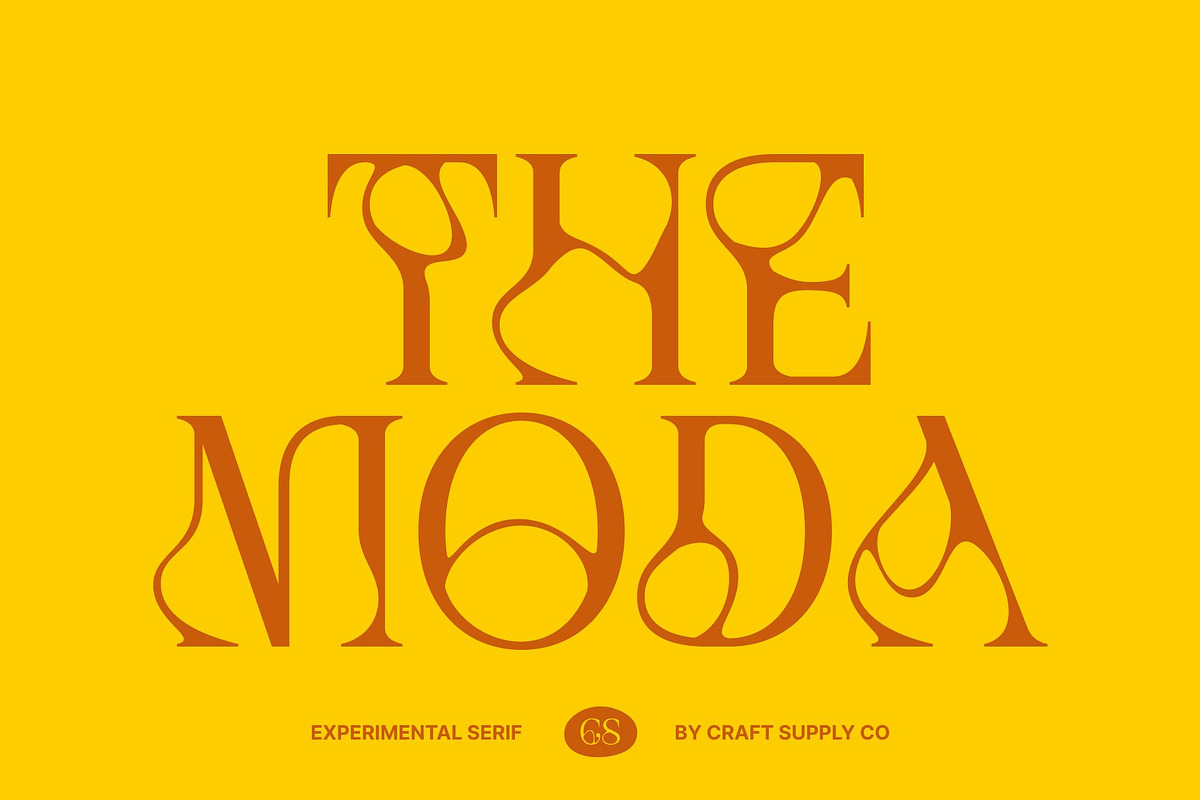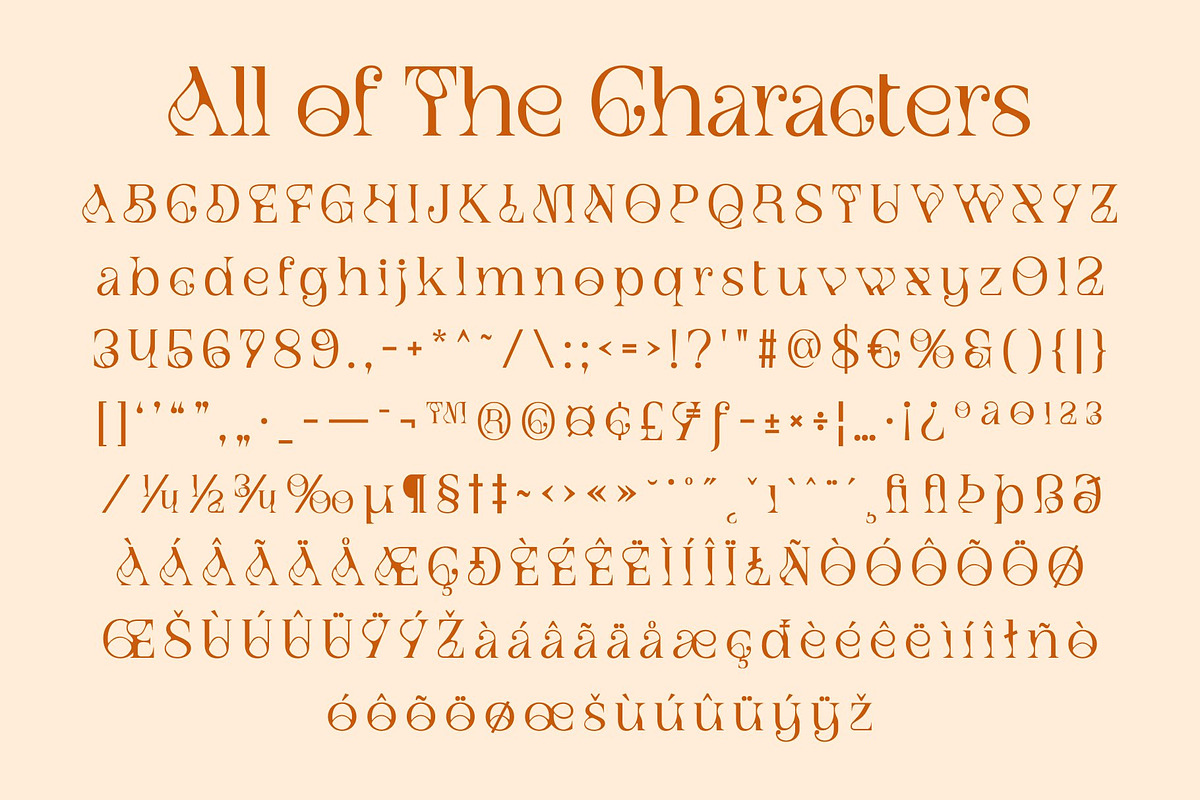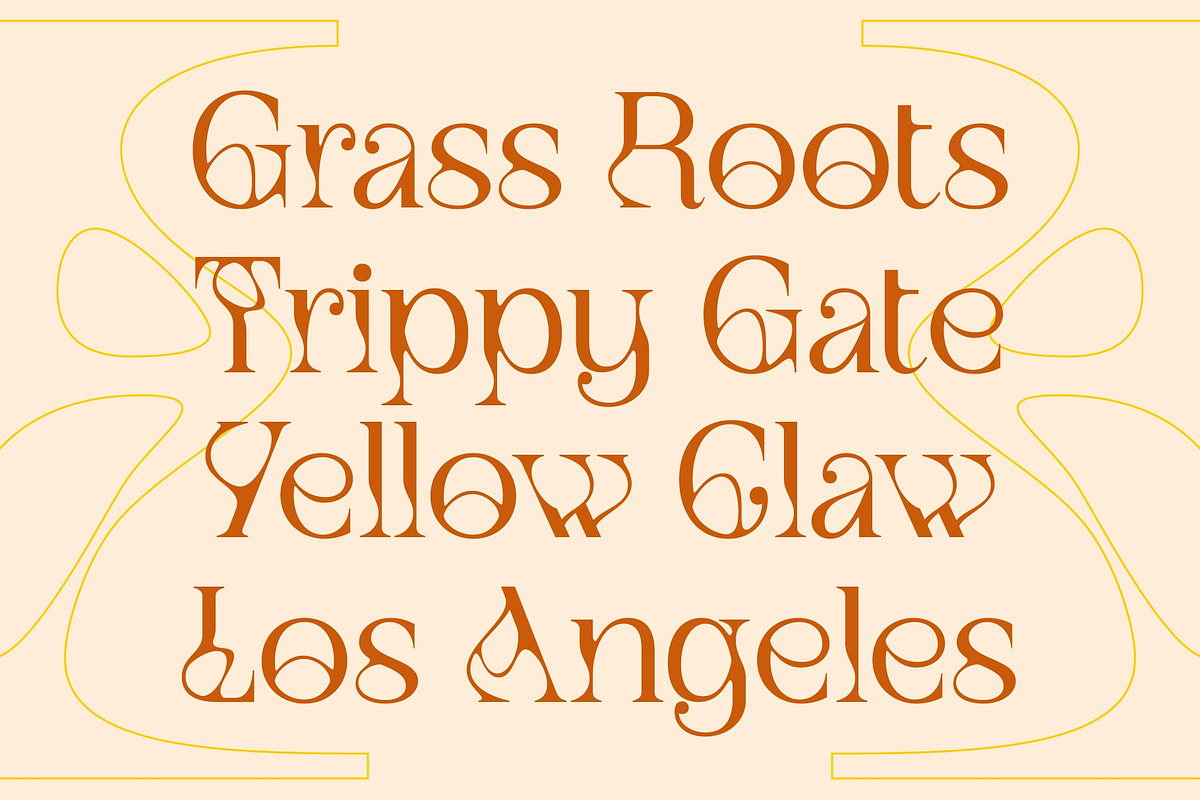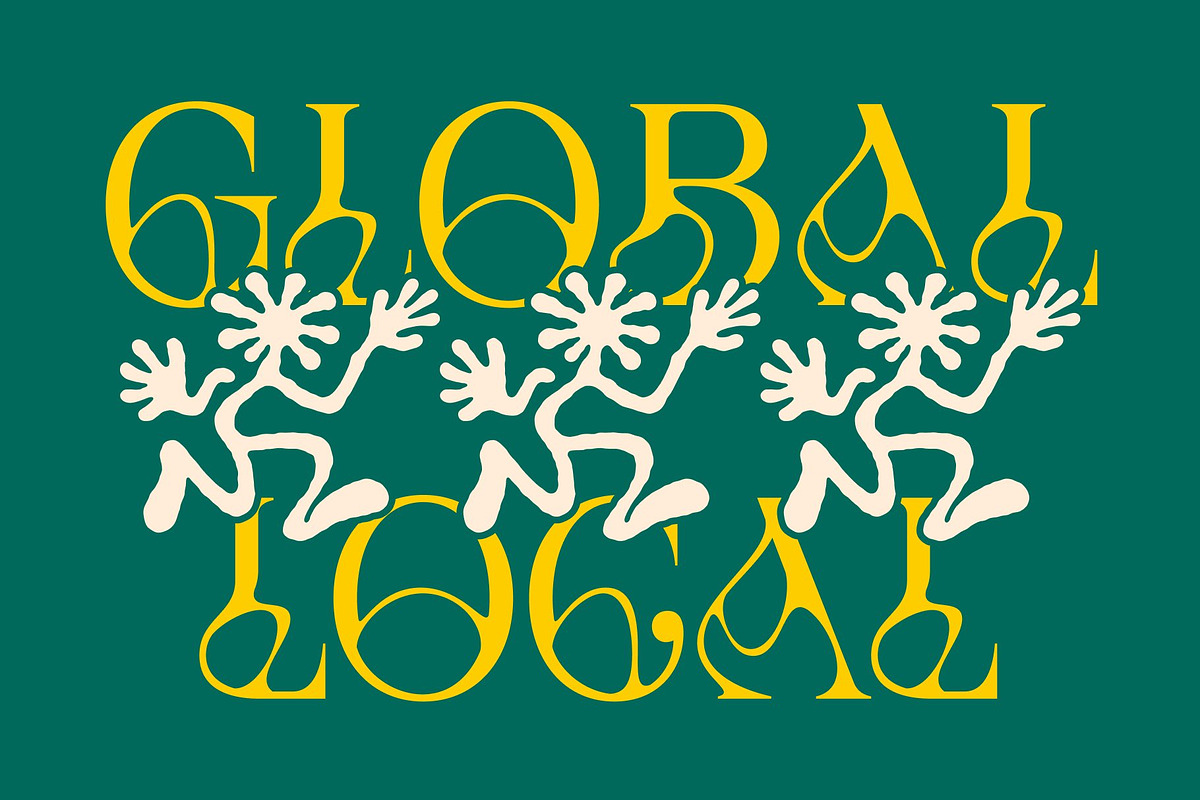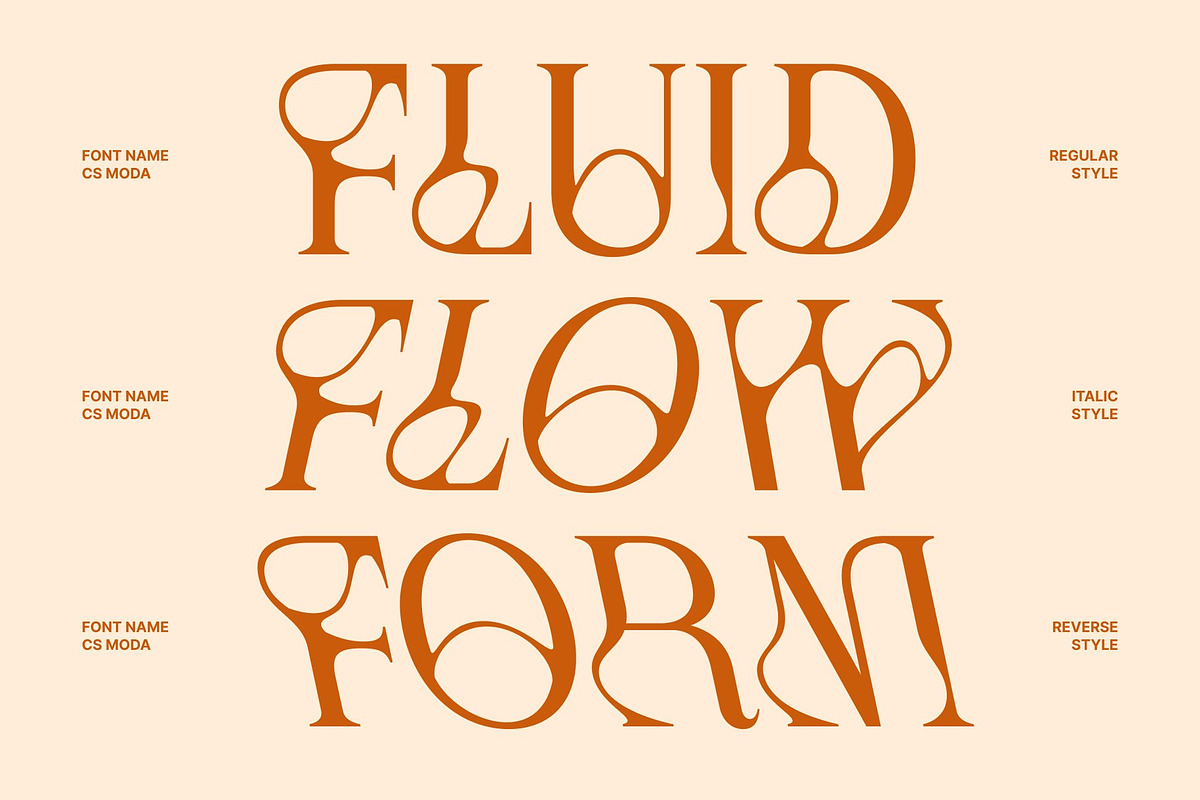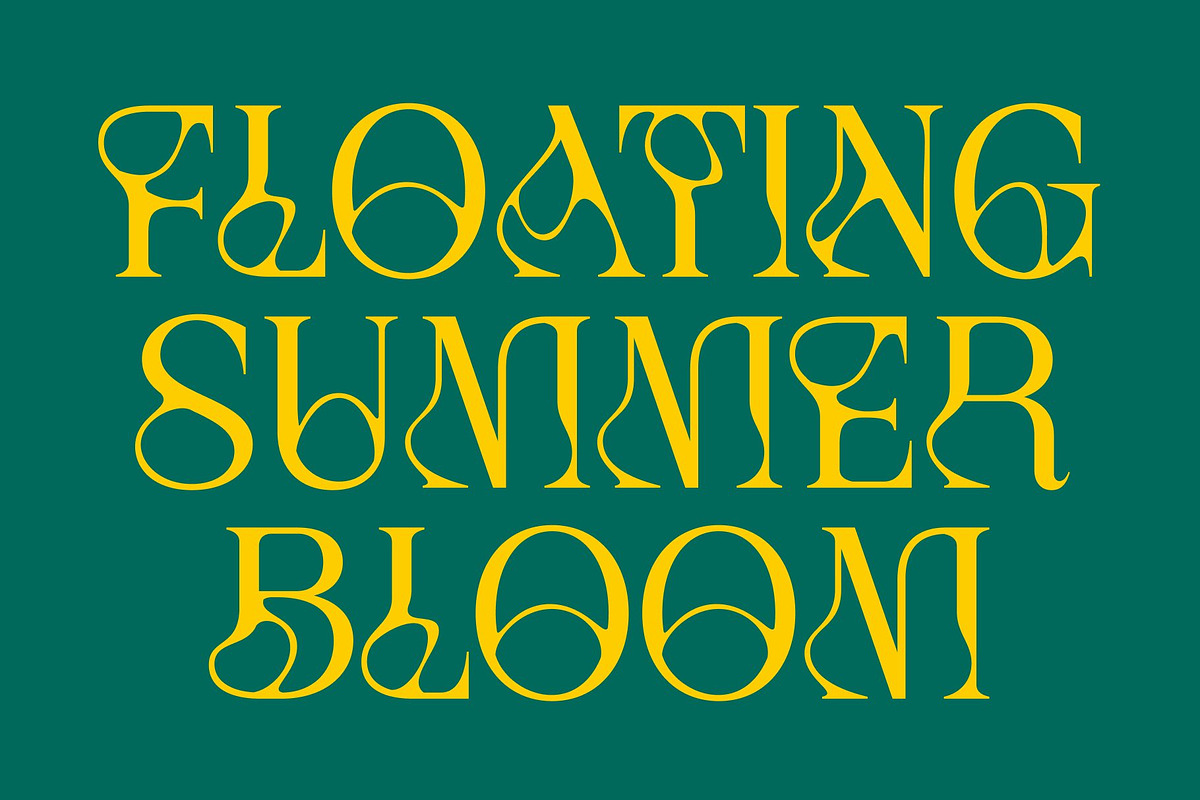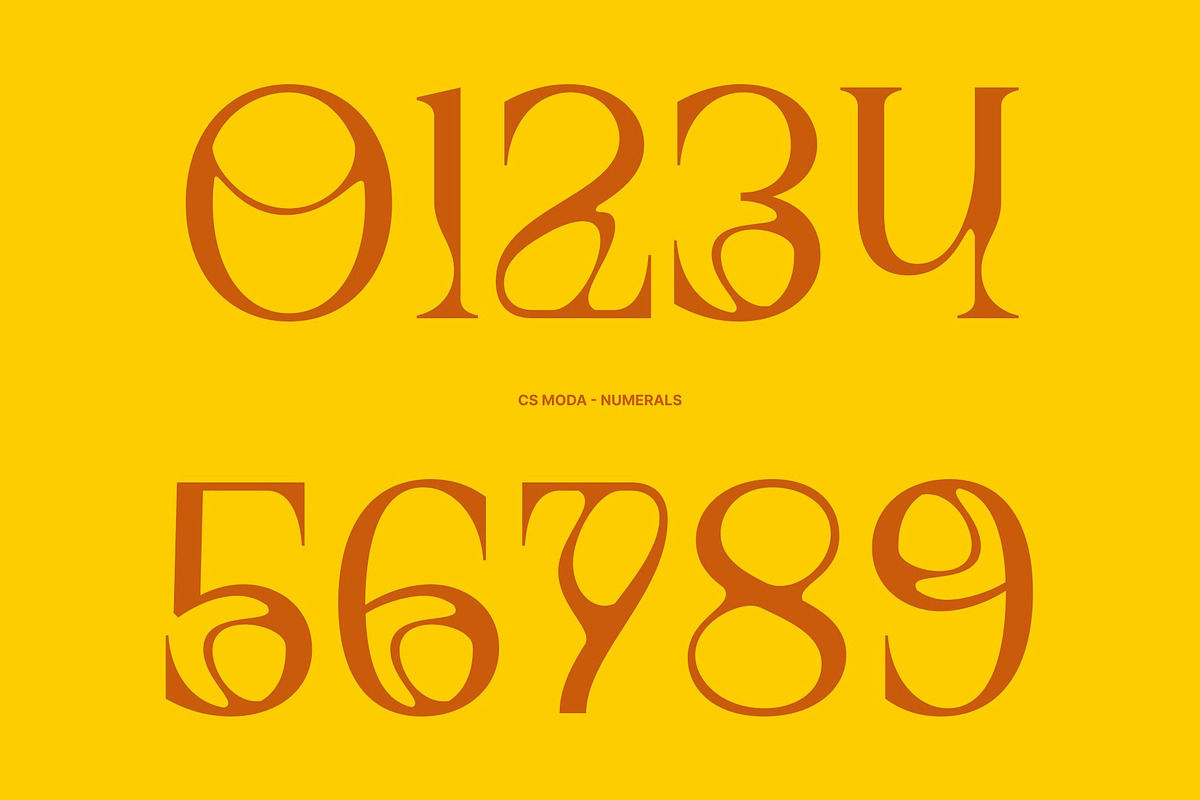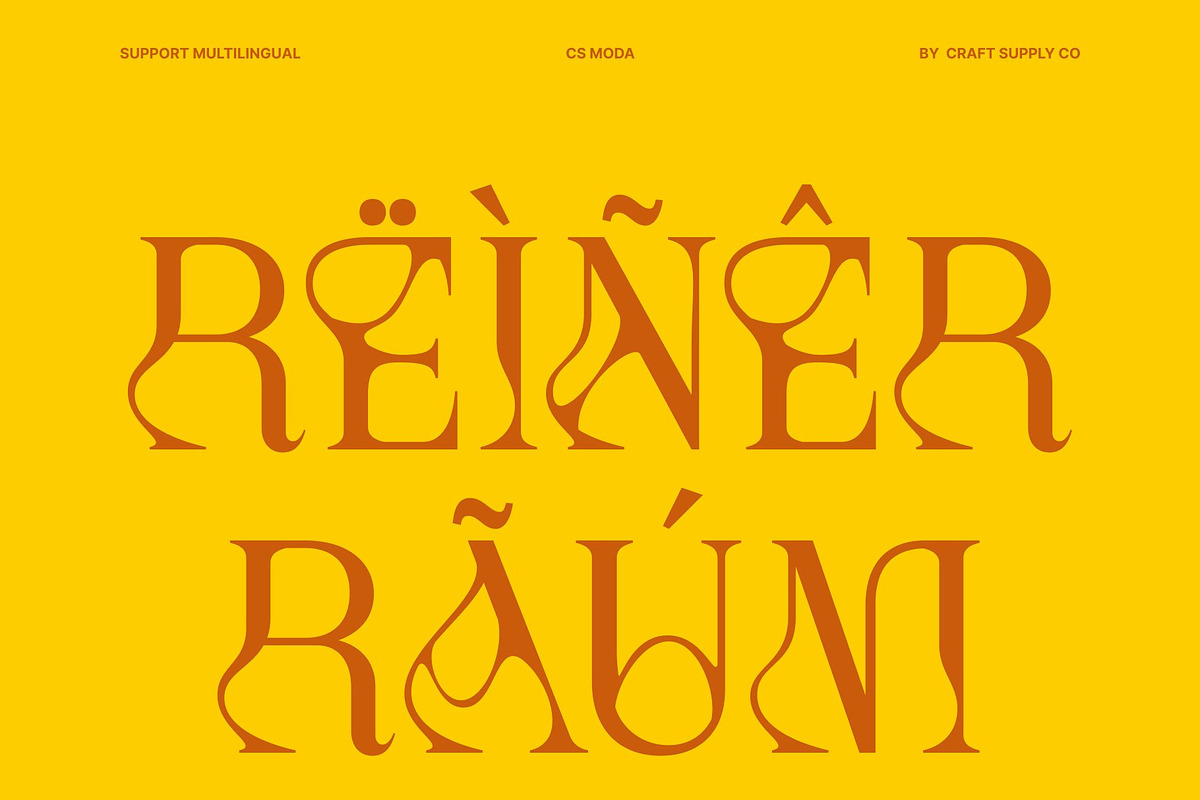
CS Moda – Experimental font
CS Moda – Melted Serif Font with Artistic Fluidity
Modern Serif with Unique Melted Concept This is a stylish serif font designed with a distinctive melted concept that transforms traditional typography into a captivating artistic statement. By blending classic serif elegance with fluid experimental details, this typeface creates a unique visual identity that feels sophisticated, creative, and contemporary. It is crafted for designers who want typography that stands out with originality and expressive character.
Elegant Letterforms with Dripping Movement The defining feature of this font lies in its elegant flowing letterforms enhanced by a fluid dripping effect. These melted details introduce a sense of movement and organic rhythm, making every word appear dynamic and alive. The combination of structured serif foundations and liquid-inspired forms creates a fascinating contrast that feels both refined and unconventional.
Artistic Expression with Contemporary Appeal This font pushes beyond traditional serif design by embracing experimental aesthetics while preserving elegance and readability. Its flowing shapes create a sense of creativity and visual intrigue, allowing typography to become a central artistic element within a composition.
Perfect for Creative Branding and Editorial Design From fashion branding and editorial layouts to posters, album covers, and artistic campaigns, this font provides a versatile typographic solution. Its combination of classic serif sophistication, melted artistic details, and contemporary style ensures your designs feel distinctive, imaginative, and visually striking.
CS Moda Regular
CS Moda Italic
CS Moda Reverse Italic